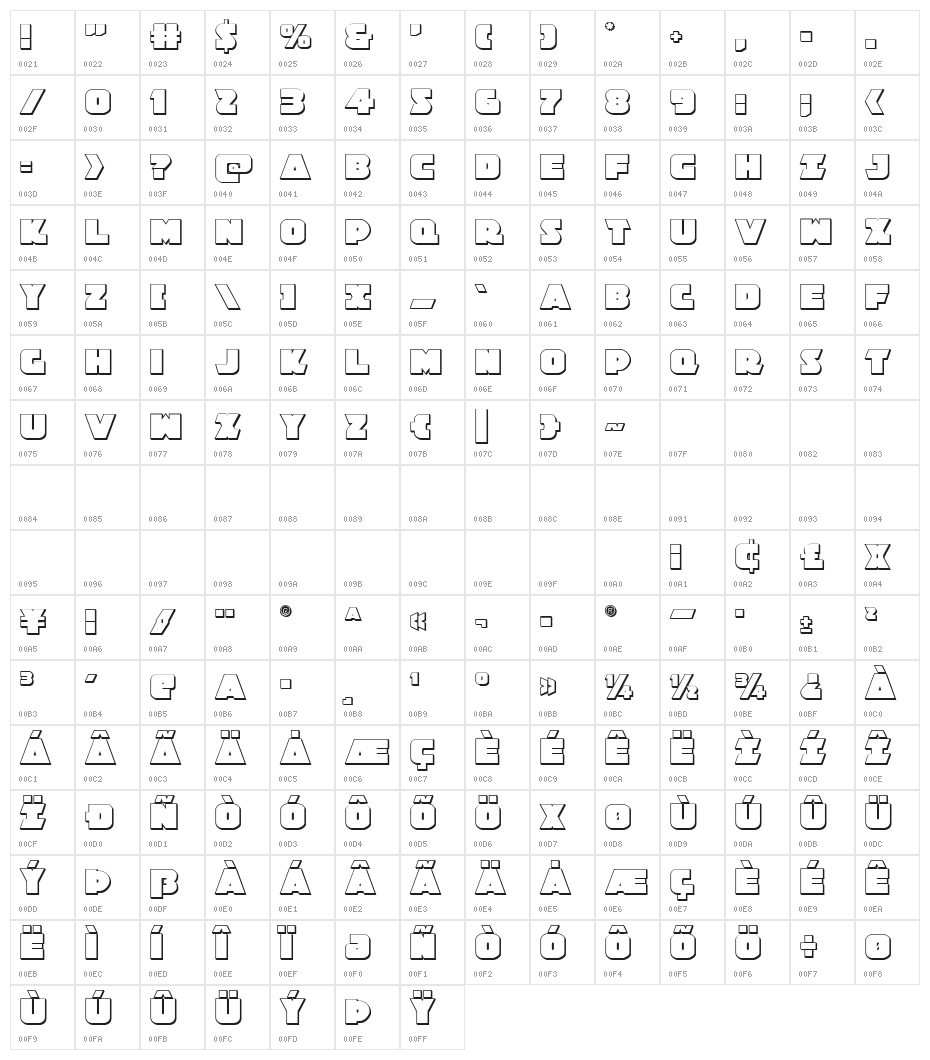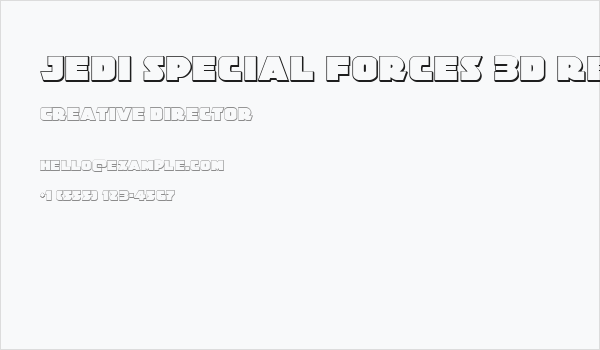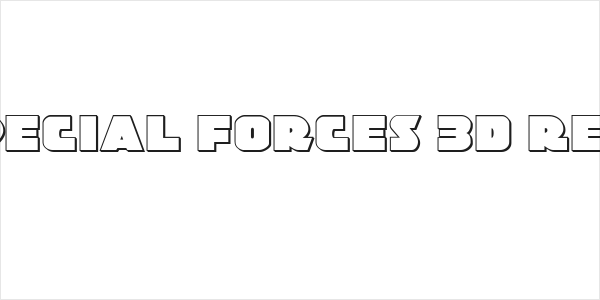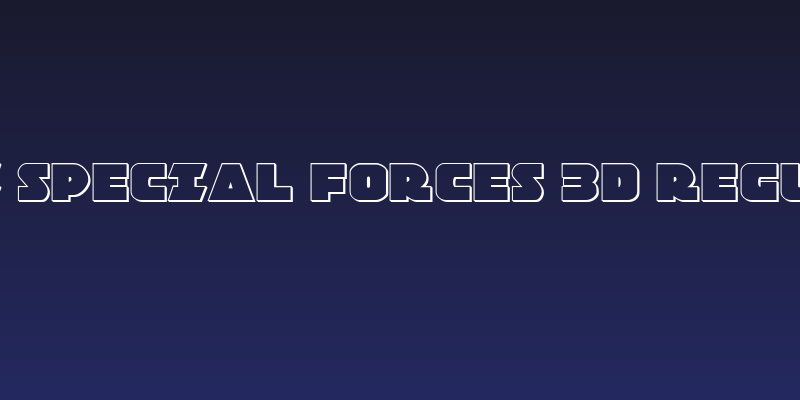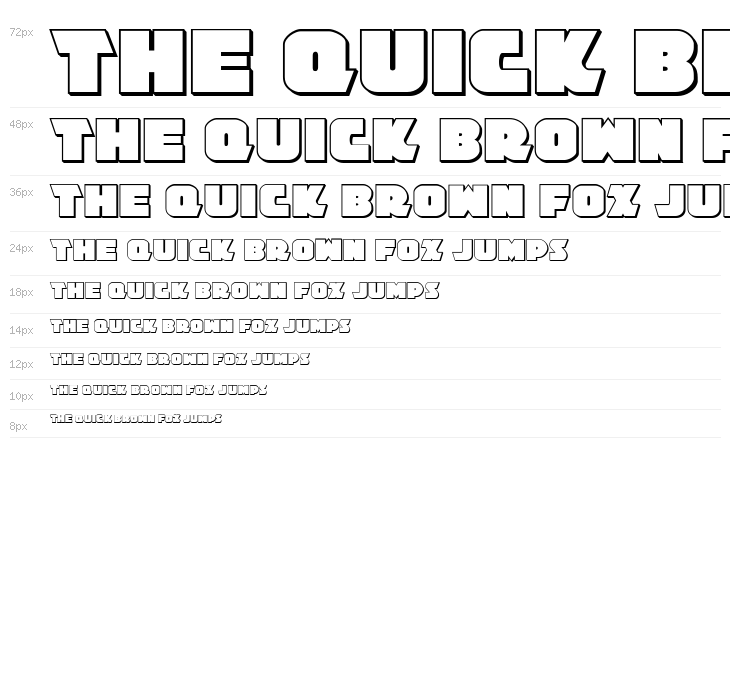
Jedi Special Forces 3D Regular Font
Jedi Special Forces 3D Regular Description
This font features a bold, three-dimensional appearance with a futuristic and dynamic style. The characters are outlined, giving them a hollow look that enhances their 3D effect. The design is geometric, with sharp angles and clean lines, creating a sense of movement and energy. The uppercase letters are particularly striking, with a uniform height and width that contribute to a cohesive and balanced look. The numerals and special characters maintain the same bold and structured style, making them easily recognizable and consistent with the overall design. This font is ideal for projects that require a modern and impactful visual presence.
| Proposed Projects | Ideal for sci-fi themed posters, video game titles, and branding that requires a modern and impactful look. |